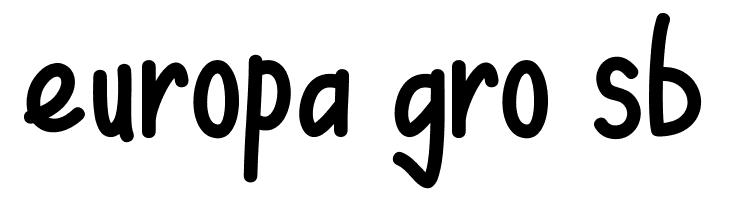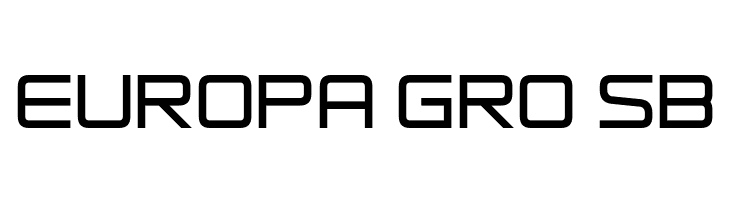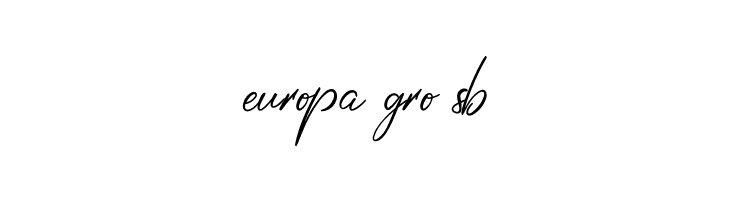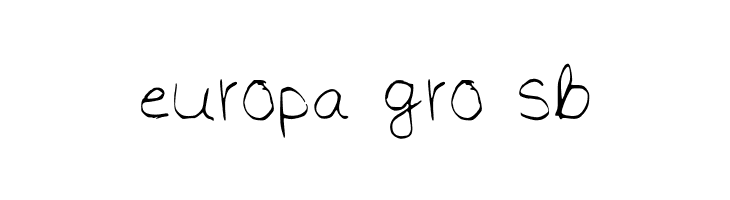
A playful, cursive font with medium contrast and flowing, connected letters.
A flowing, cursive script font with elegant, sweeping curves.
Bold, playful hand-drawn font.
A modern, elegant handwritten font with fluid and graceful strokes.
A playful, handwritten font with uneven strokes and a casual style.
A playful and whimsical font with elongated, narrow characters.
A bold, gothic-inspired font with sharp angles and thick strokes.